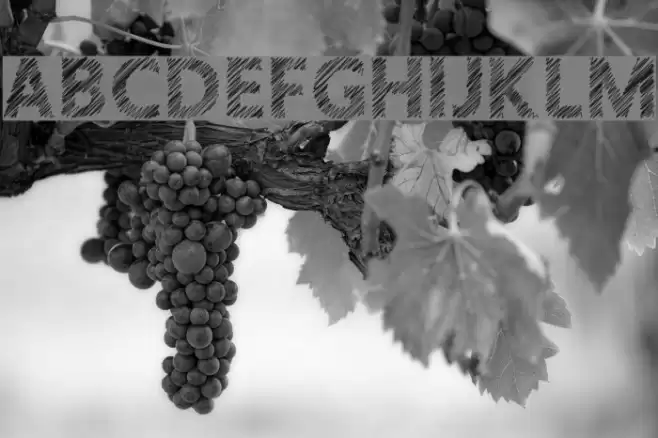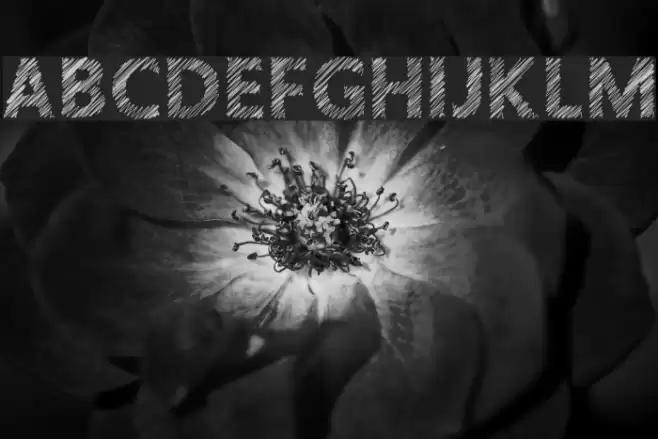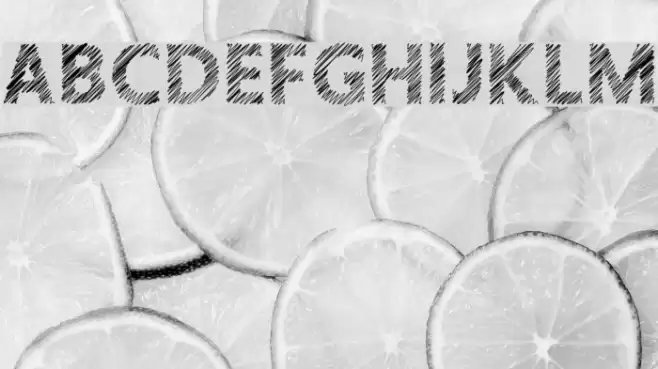
Crosshatcher Font
Crosshatcher Description
This font features a unique crosshatched texture, giving it a hand-drawn, artistic appearance. The letters are bold and uppercase, with a consistent pattern of diagonal lines running across each character. This design creates a sense of depth and texture, making it stand out in any application. The font maintains a uniform width and height across all characters, ensuring readability while adding a creative flair. The crosshatching effect adds a dynamic and textured look, making it suitable for projects that require a distinctive and eye-catching typeface. Its bold presence and artistic style make it ideal for creative projects, branding, and headlines.
A bold, crosshatched font with a hand-drawn, artistic style from Uncategorized fonts.
- Proposed Projects: Ideal for creative branding, artistic posters, and eye-catching headlines.
- Overall Style: Artistic, Textured
- Use Case: Headlines, Logos, Creative projects